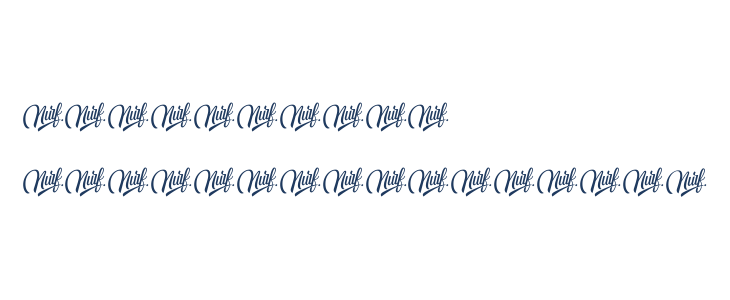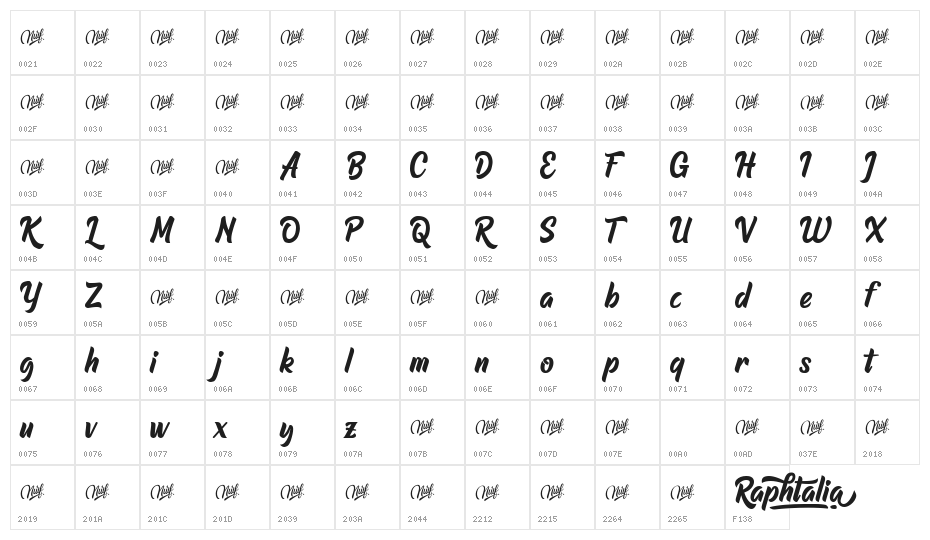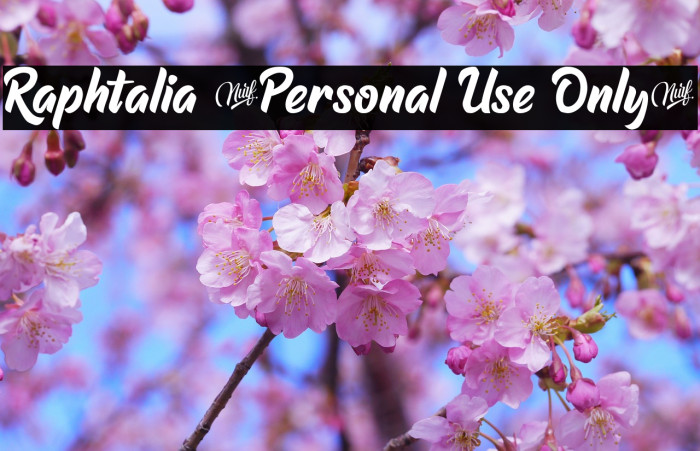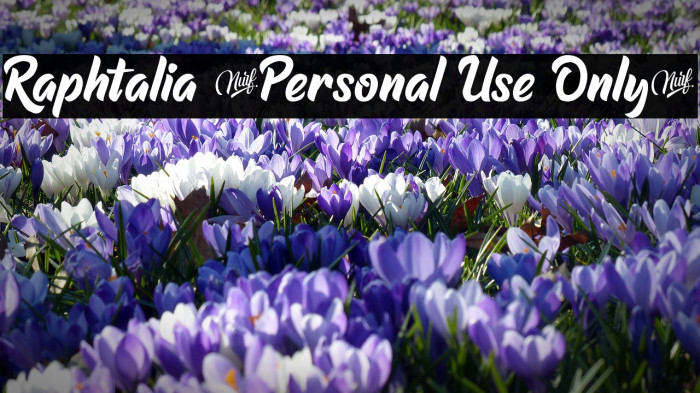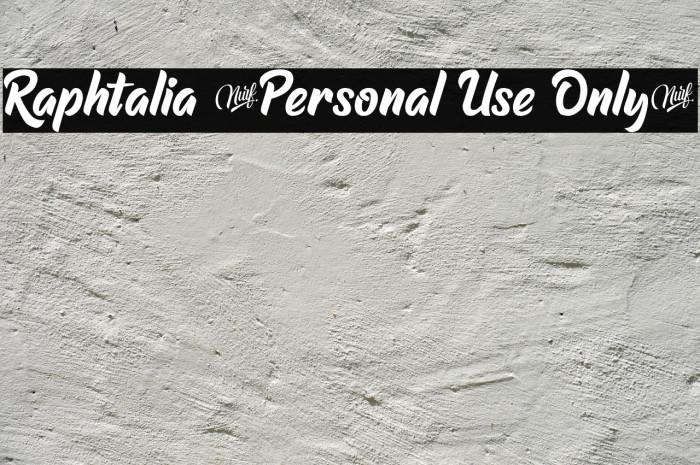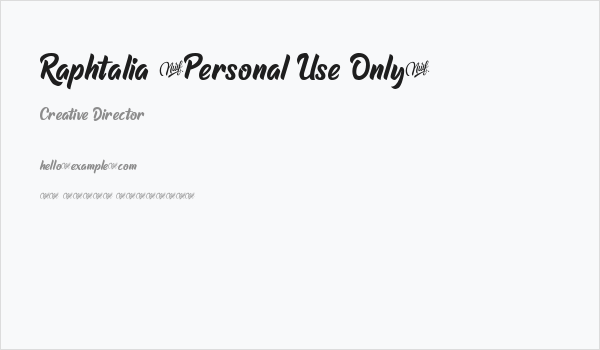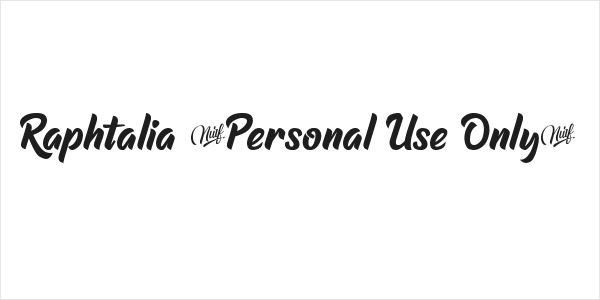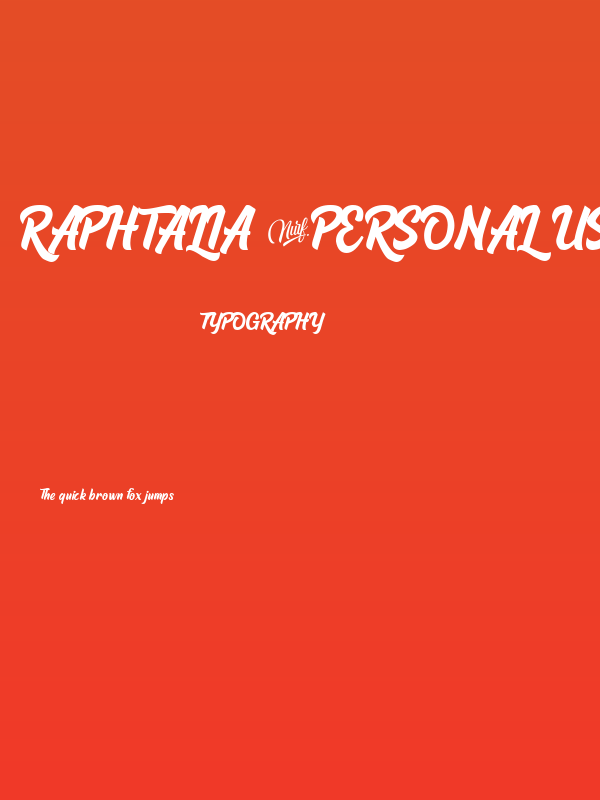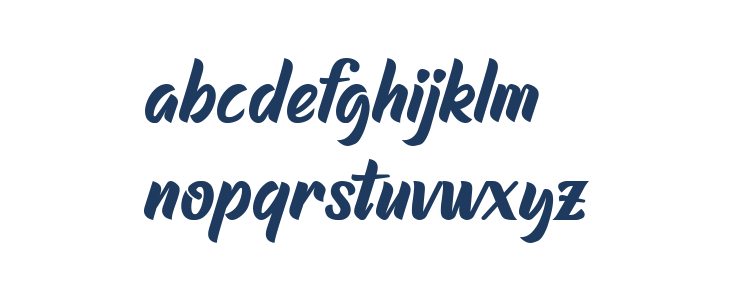
Raphtalia (Personal Use Only) Font
Raphtalia (Personal Use Only) Description
This font features a bold and dynamic script style with a strong presence. The uppercase letters are characterized by their sweeping curves and dramatic flourishes, giving them a sense of movement and elegance. The lowercase letters maintain a consistent flow, complementing the uppercase with their smooth, rounded forms. The overall design is cohesive, with each character seamlessly connecting to the next, making it ideal for creating visually striking text. The font's bold weight and high contrast between thick and thin strokes enhance its readability while adding a touch of sophistication. Its decorative nature makes it suitable for projects that require a personal or artistic touch, such as invitations, branding, or headlines.